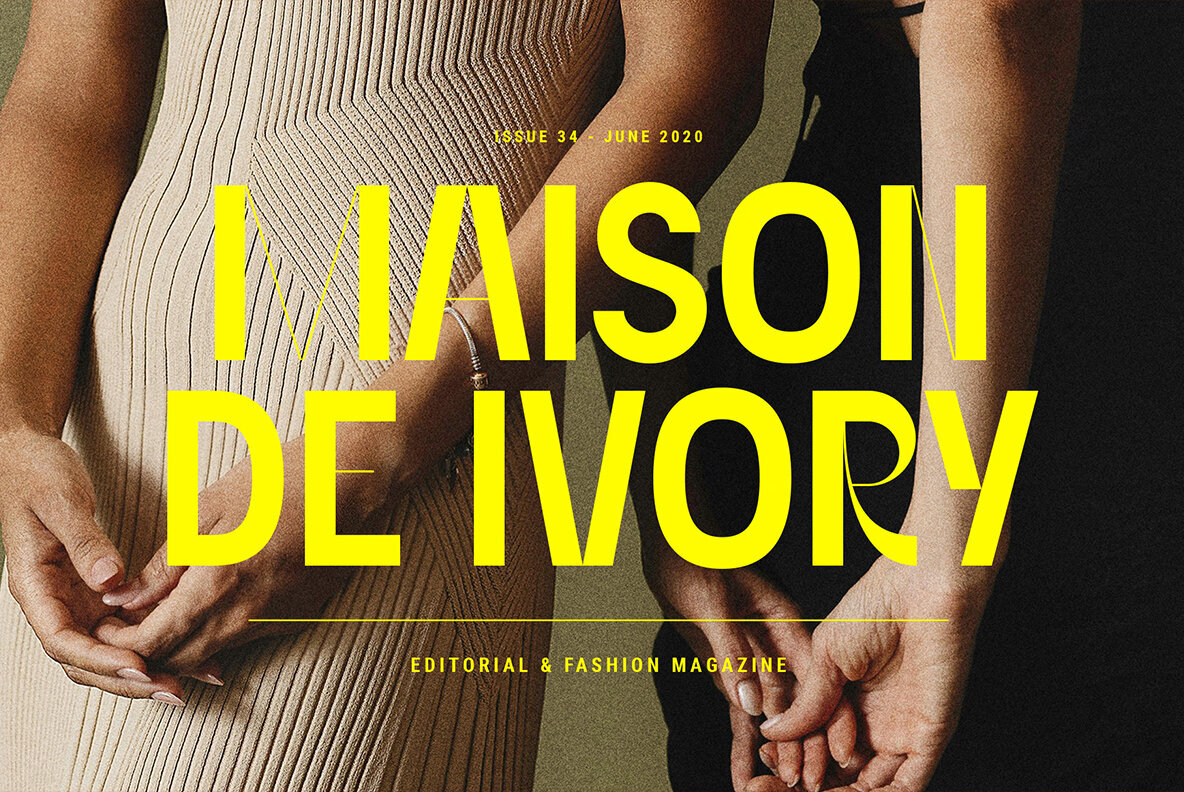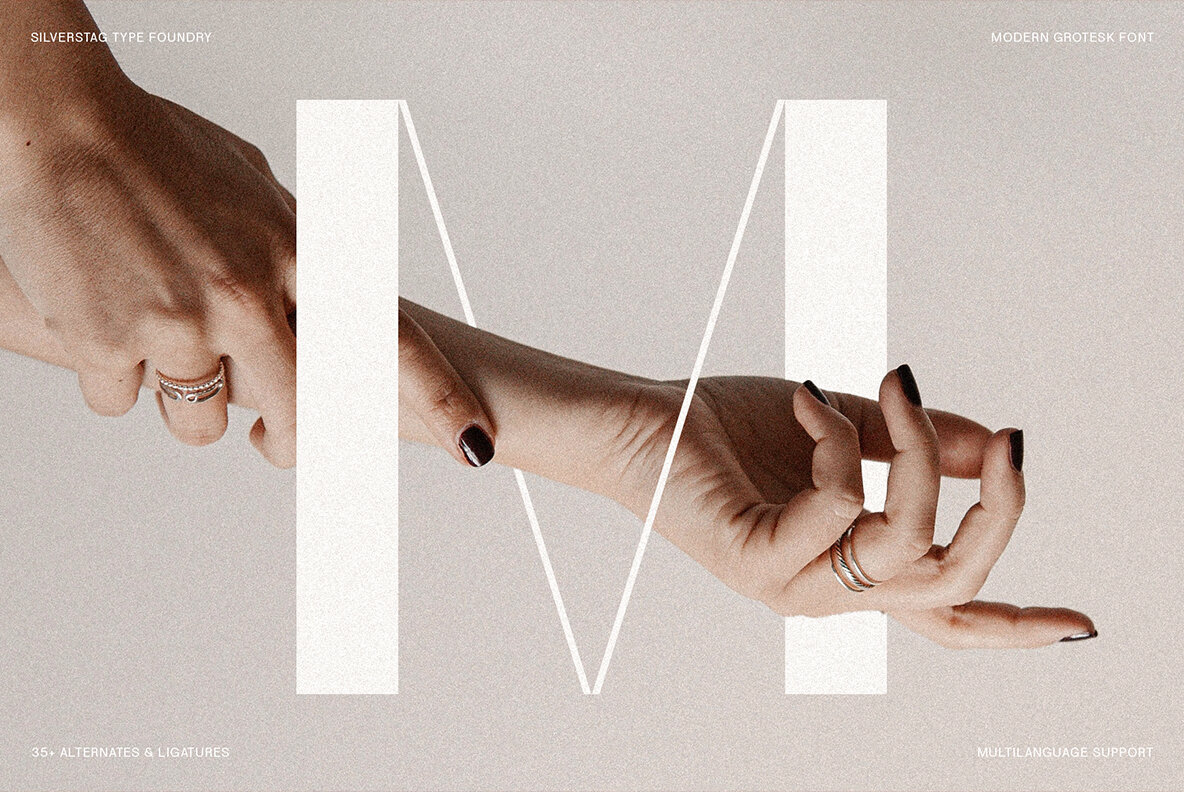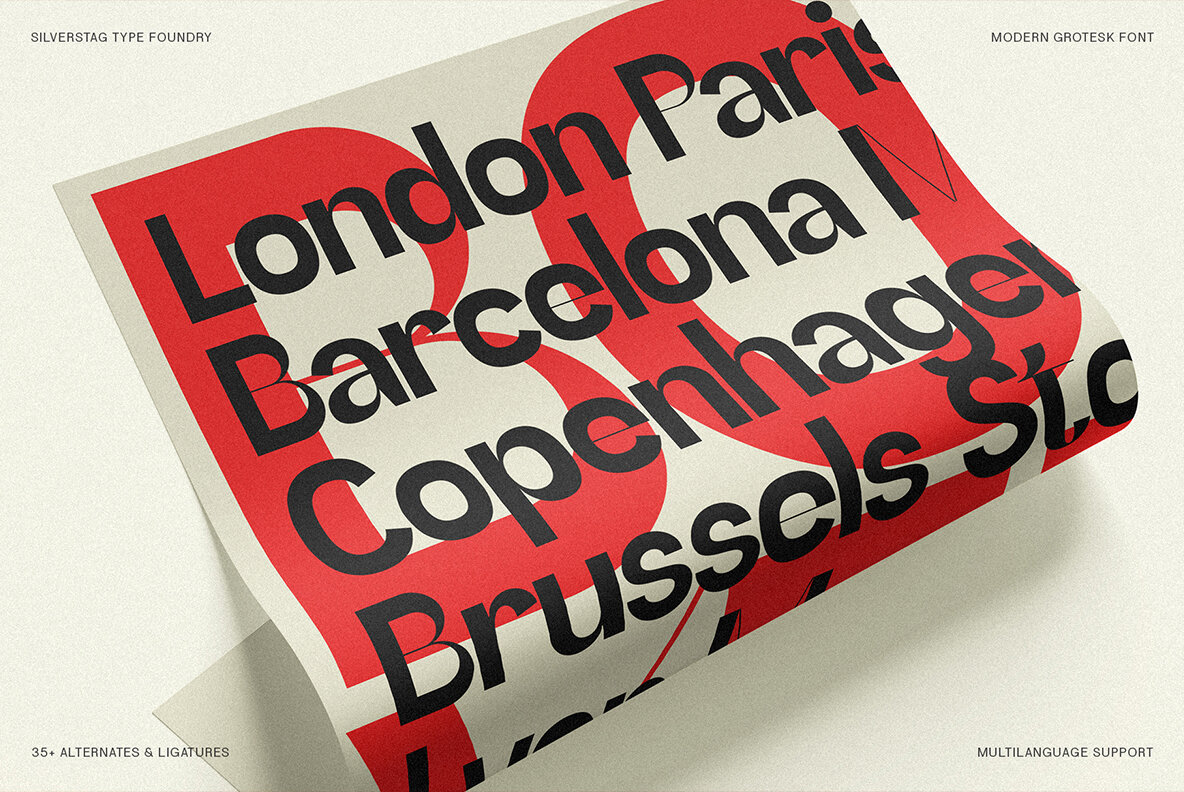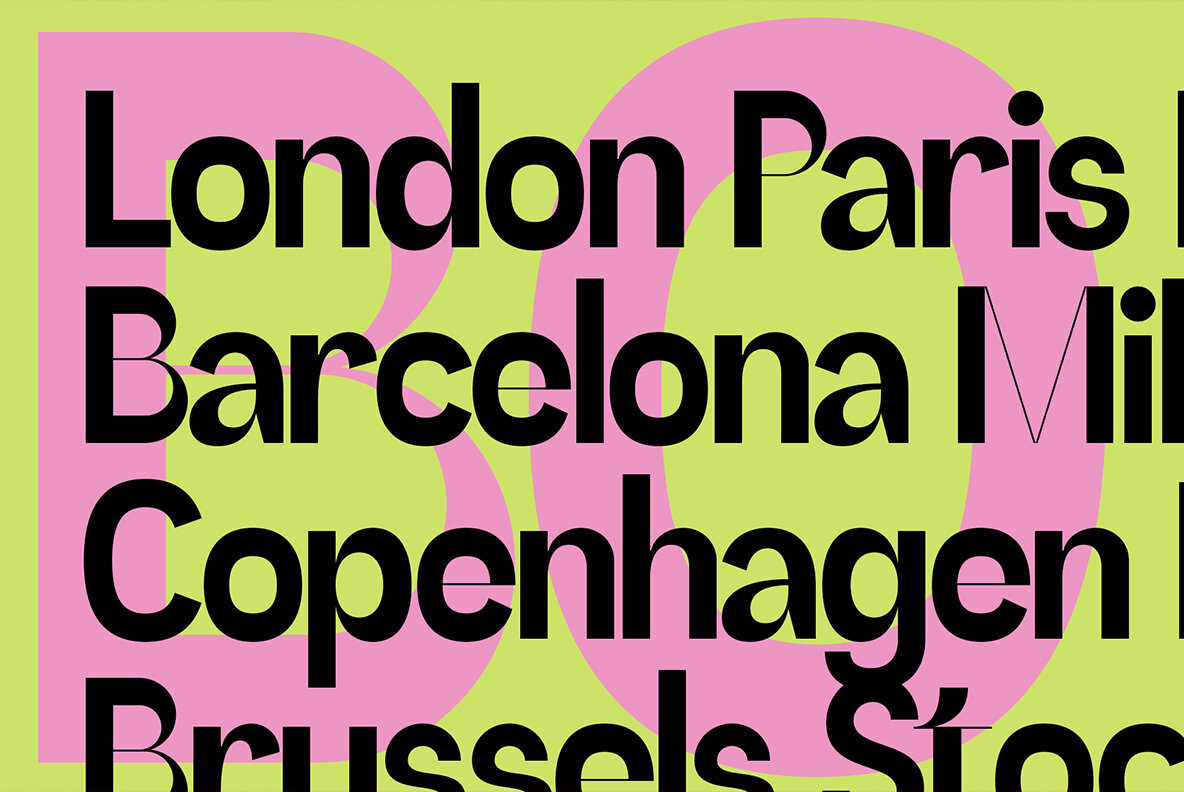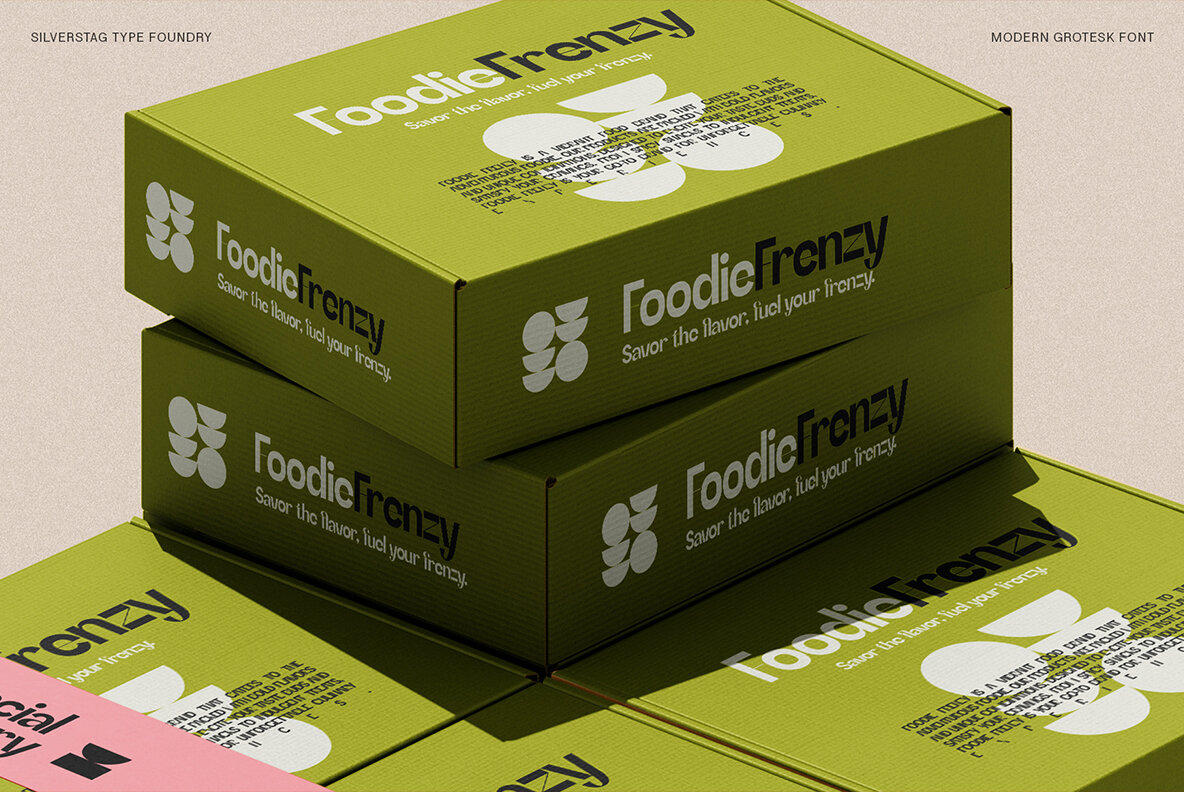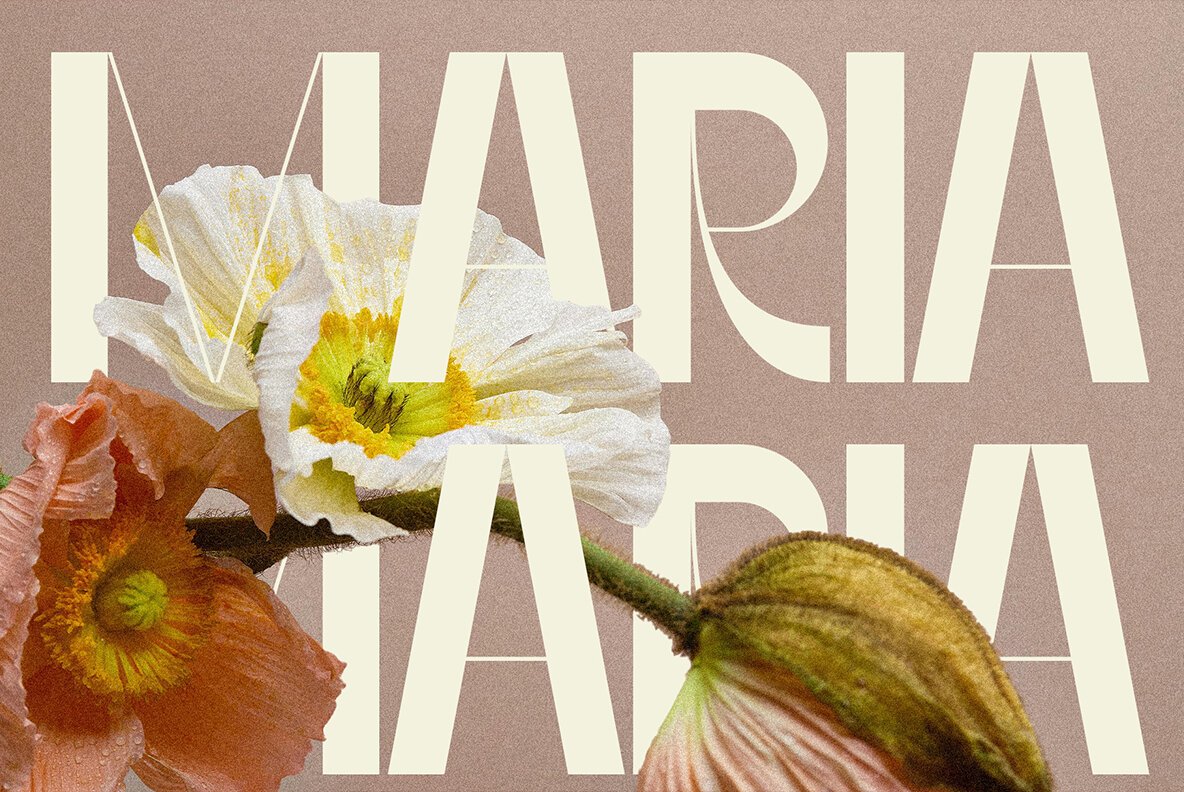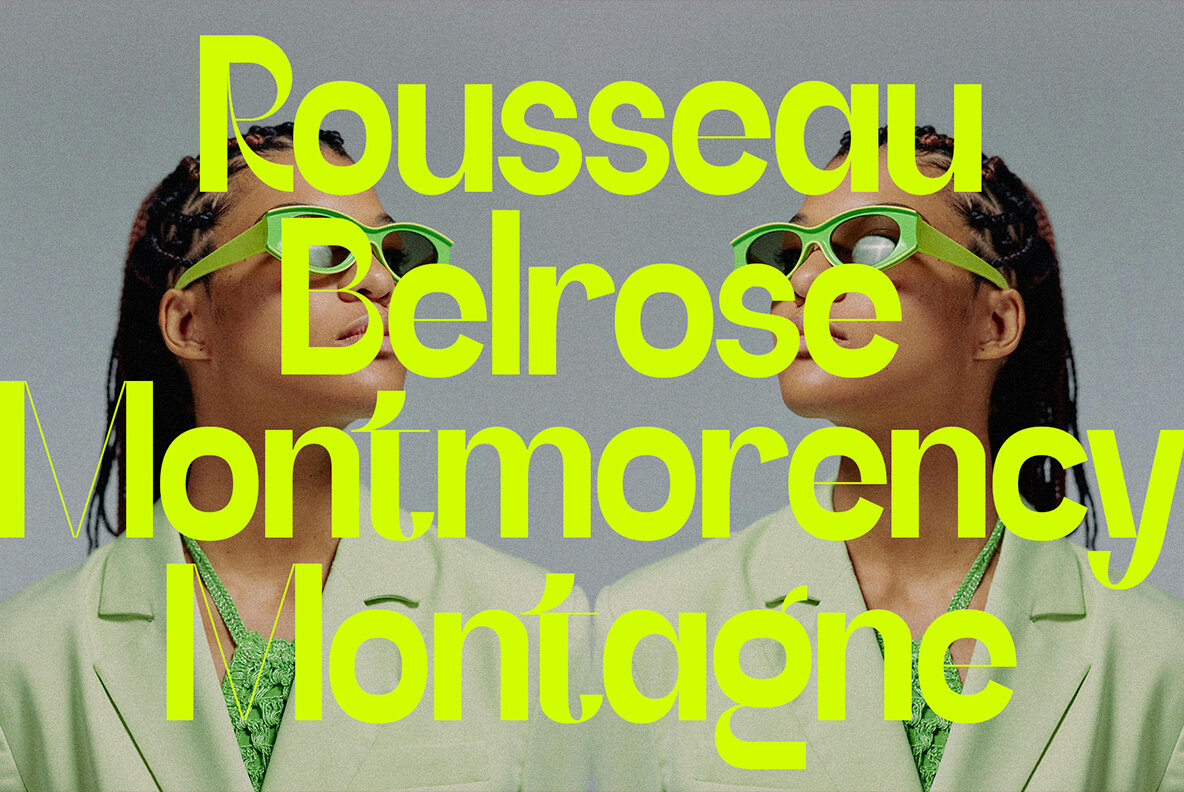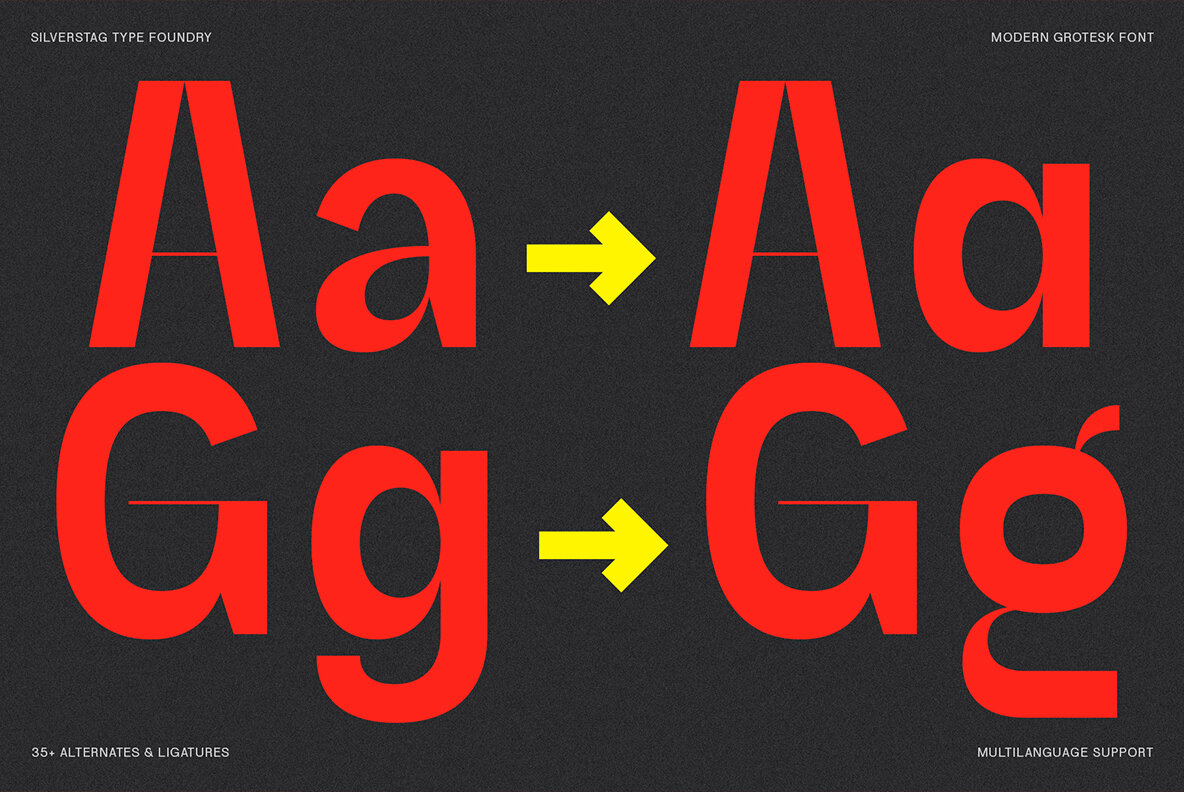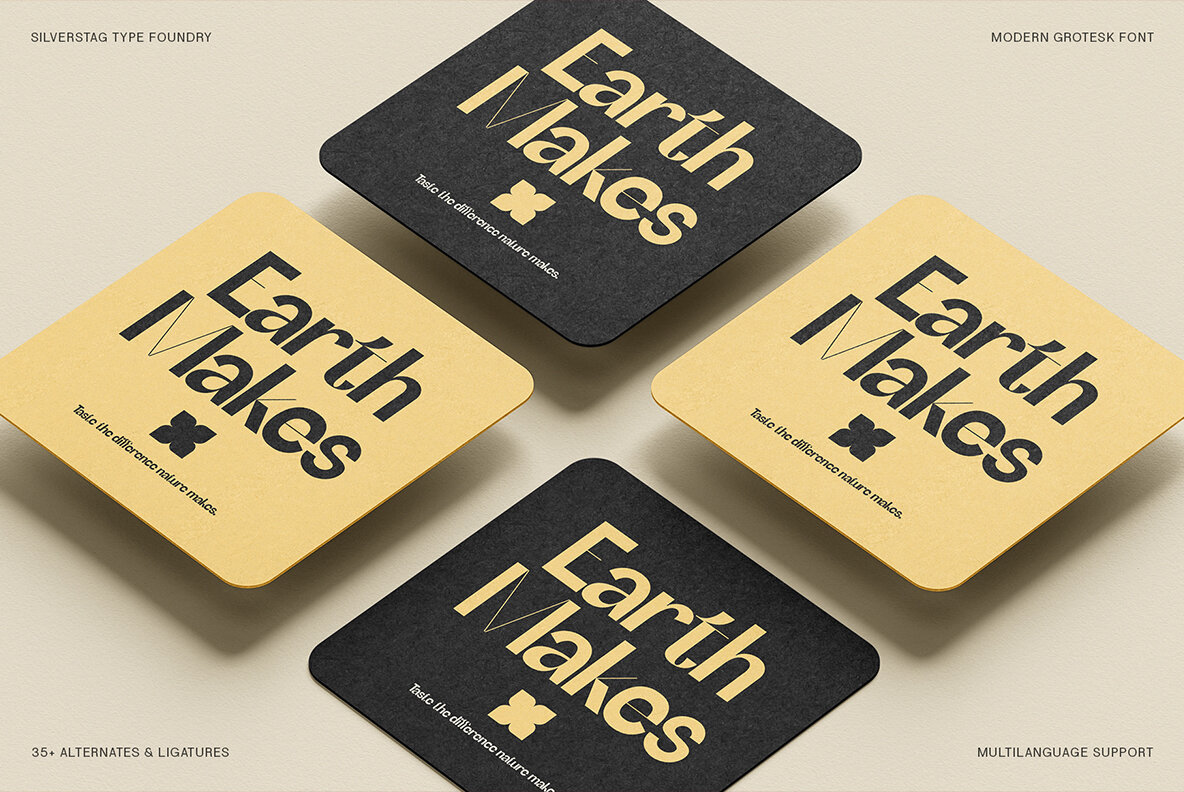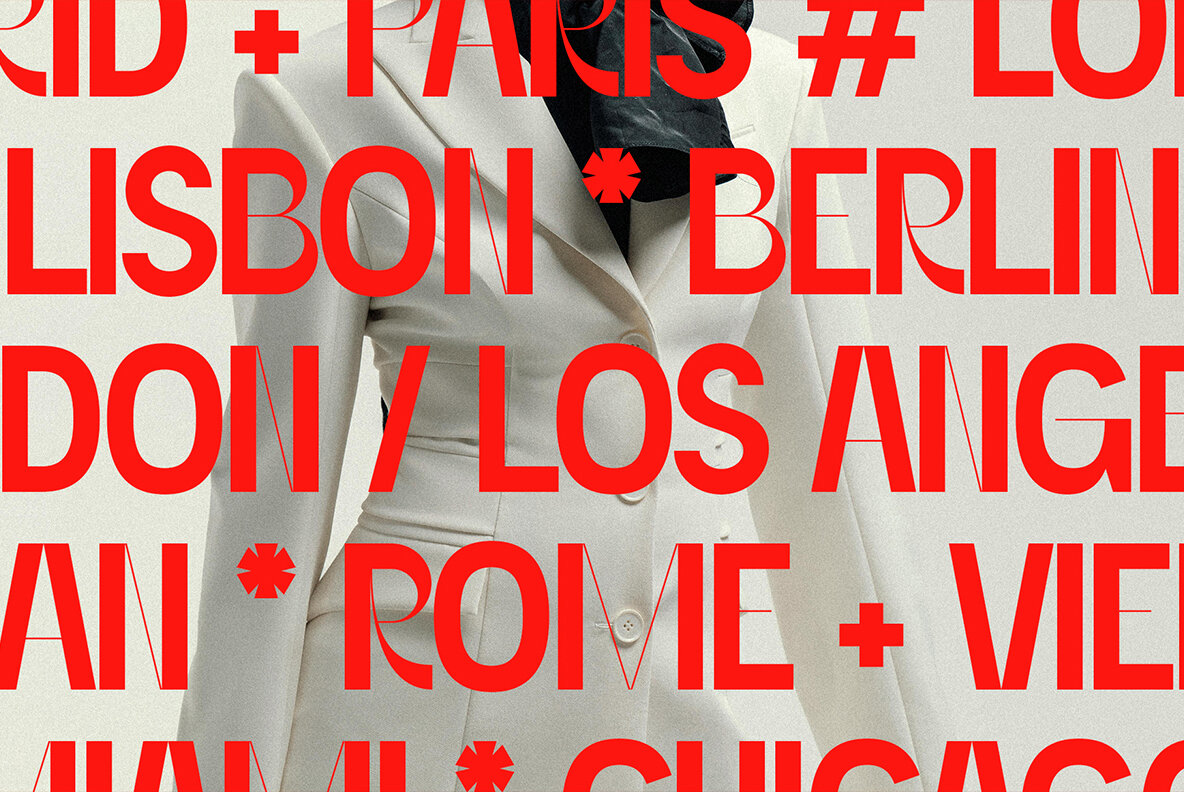
SLTF Refugio Font
SLTF Refugio Regular
SLTF Refugio - A Grotesque Sans Serif with a Modern Soul Introducing SLTF Refugio, a typeface that embodies the spirit of finding sanctuary in creativity. This grotesk sans serif isn't just a collection of letters; it's a haven of unique curves, chic details, and expressive ligatures, designed to inspire and elevate your designs. Finding Refuge in Creativity The art of font design has always been a refuge for me — a space where I can explore ideas, experiment with forms, and lose myself in the creative process. SLTF Refugio is a reflection of that sanctuary, a reminder that within the strokes of each letter lies a world of possibilities. Refugio is characterized by its distinctive personality. Its letterforms strike a balance between classic grotesque styles and contemporary aesthetics, with unexpected curves and a unique contrast that adds a touch of sophistication. With over 35 ligatures and alternates, this typeface offers endless possibilities for customization and self-expression. Key Features: Where SLTF Refugio shines: SLTF Refugio is more than just a font; it's a sanctuary for your creativity. It's an invitation to explore new possibilities, express your unique vision, and find refuge in the beauty of typography.